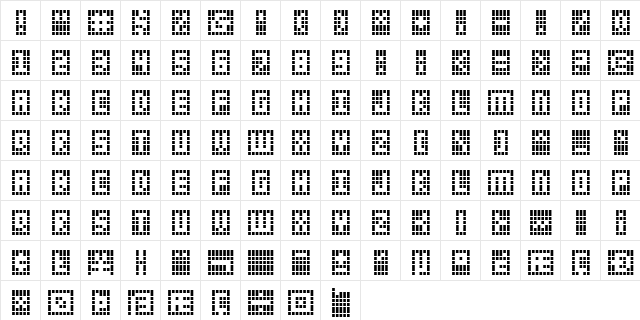
Y-Grid Regular
Design Context for Y-Grid Typeface
Y-Grid offers clean, dependable letterforms without strong stylistic allegiance, making it a practical choice for designers who need flexibility.
Pro Tip: Pair Y-Grid with a font of contrasting weight or personality to build a more expressive typographic hierarchy.